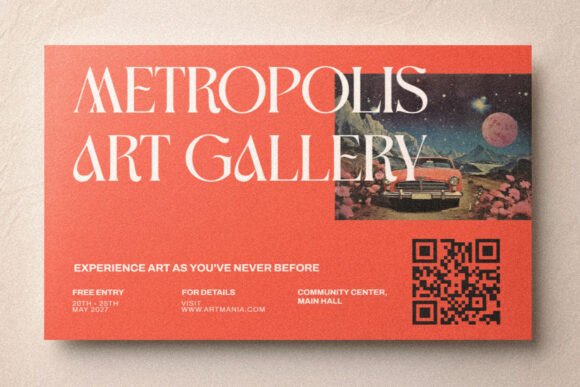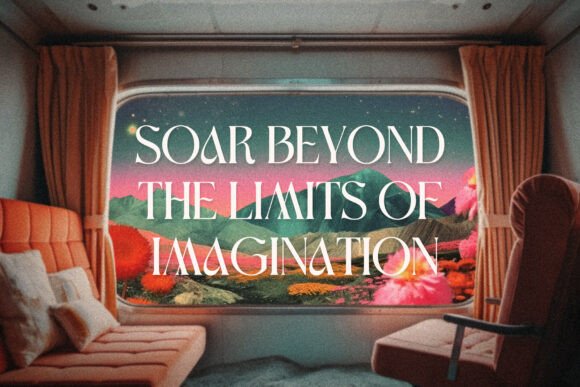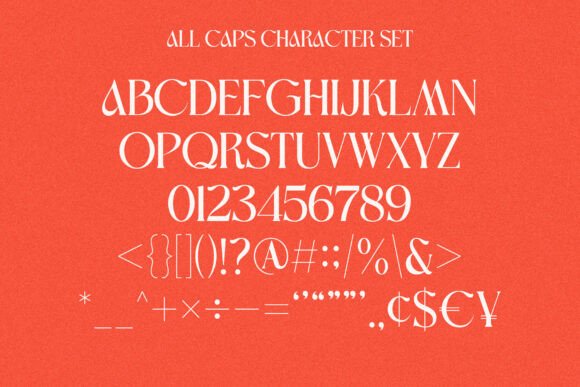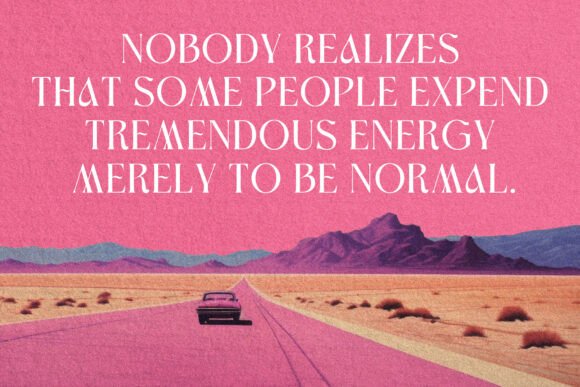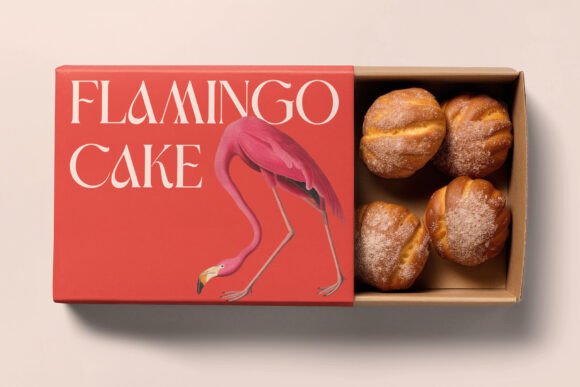
Introducing Gelora Font: The Ultimate Vintage Serif for Your Creative Projects
Are you on the hunt for a font that exudes elegance and sophistication? Look no further than Gelora Font, a stunning vintage serif font that’s perfect for a wide range of creative projects. From branding and logos to social media posts and product packaging, Gelora Font is the ideal choice for designers and crafters looking to add a touch of classic charm to their work.
What Makes Gelora Font So Special?
Gelora Font is a beautifully crafted serif font that’s inspired by the elegance of vintage typography. Its unique design features subtle flourishes and intricate details that give it a distinctive look that’s both nostalgic and timeless. Whether you’re working on a branding project, designing a logo, or creating social media content, Gelora Font is sure to make your work stand out from the crowd.
Uses for Gelora Font
One of the best things about Gelora Font is its versatility. This amazing font can be used for a wide range of projects, including:
- Branding projects: Create a lasting impression with Gelora Font, perfect for logos, business cards, and other marketing materials.
- Social media posts: Add a touch of elegance to your social media content, from Facebook posts to Instagram stories.
- Advertisements: Make your ads stand out with Gelora Font, ideal for print and digital ads.
- Labels and product packaging: Give your products a premium look with Gelora Font, perfect for labels, packaging, and more.
- Photography: Use Gelora Font to add a touch of sophistication to your photo captions and watermarks.
- Wedding designs: Create beautiful wedding invitations, programs, and decorations with Gelora Font.
- Watermarks: Protect your images with a stylish watermark featuring Gelora Font.
- Invitation product designs: Design stunning invitations for parties, events, and more with Gelora Font.
- Stationery: Add a touch of elegance to your stationery, from letterheads to notebooks.
Why Choose Gelora Font?
So why should you choose Gelora Font for your next project? Here are just a few reasons:
- Elegant design: Gelora Font features a beautiful, vintage-inspired design that’s sure to impress.
- Versatility: This font can be used for a wide range of projects, from branding and advertising to photography and wedding designs.
- Easy to read: Despite its intricate details, Gelora Font is easy to read, making it perfect for body text and captions.
- Unique: Gelora Font is a one-of-a-kind font that’s sure to make your work stand out from the crowd.
Tips for Using Gelora Font
To get the most out of Gelora Font, here are a few tips:
- Use it sparingly: While Gelora Font is beautiful, it can be overpowering if used too much. Use it sparingly to add a touch of elegance to your design.
- Pair it with a sans-serif font: Pair Gelora Font with a sans-serif font for a striking contrast that’s sure to make your design pop.
- Experiment with colors: Gelora Font looks great in a range of colors, from rich blacks and blues to elegant golds and silvers.